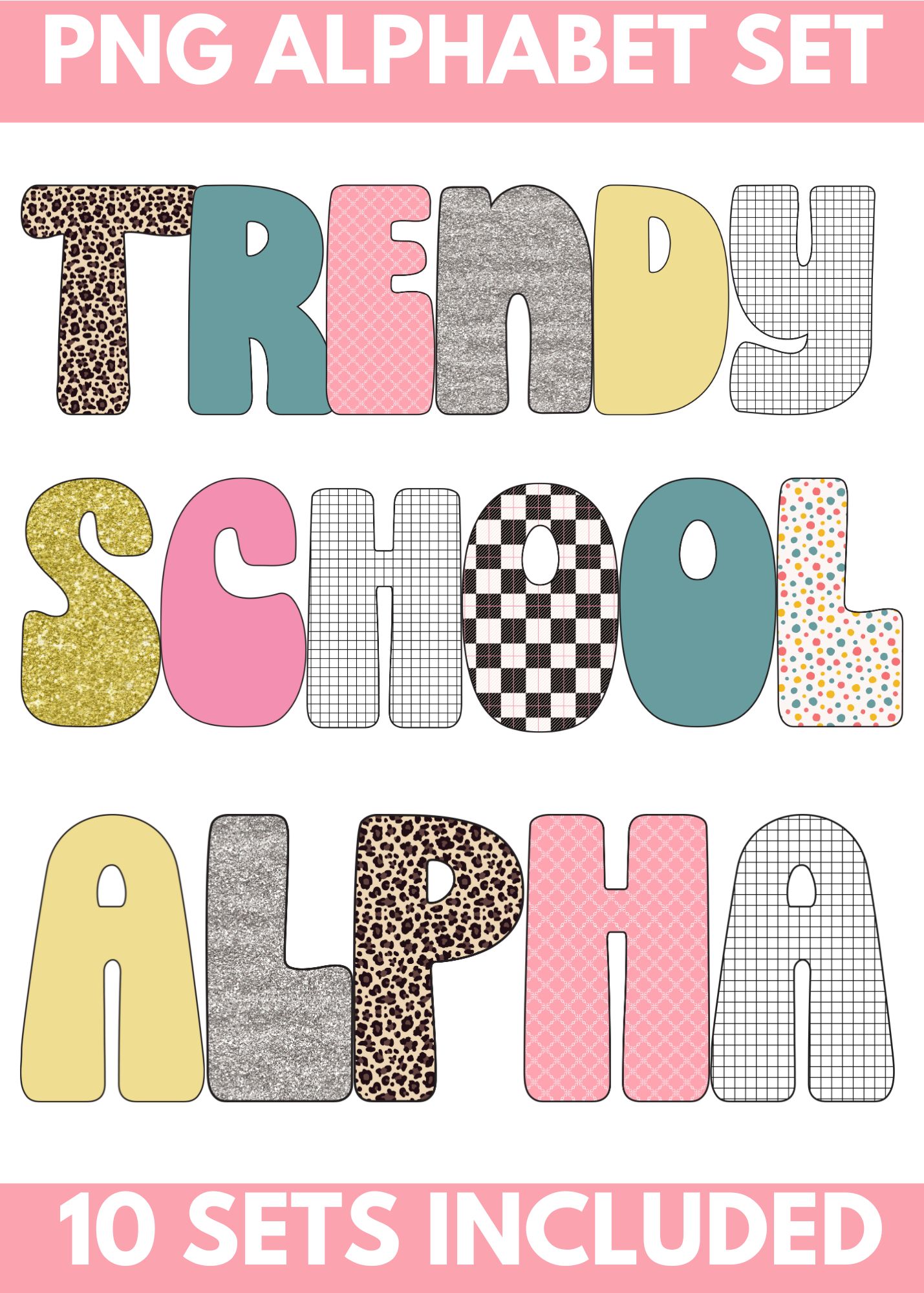
TRENDY SCHOOL PNG Alpha Font – 10 Complete Sets – DIGITAL DOWNLOAD
12-Set PNG Alpha Bundle – Patterned Designs
Take your designs to the next level with our PNG Alpha Bundle, featuring a variety of unique patterns! This versatile collection is perfect for T-shirt makers, crafters, and small business owners looking for creative, ready-to-use alphabets.
- 12 Unique Patterns to match any project or style.